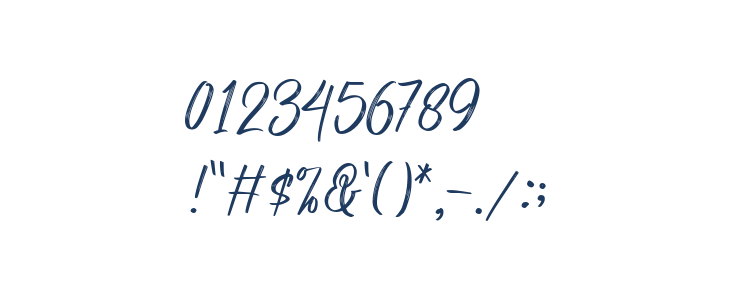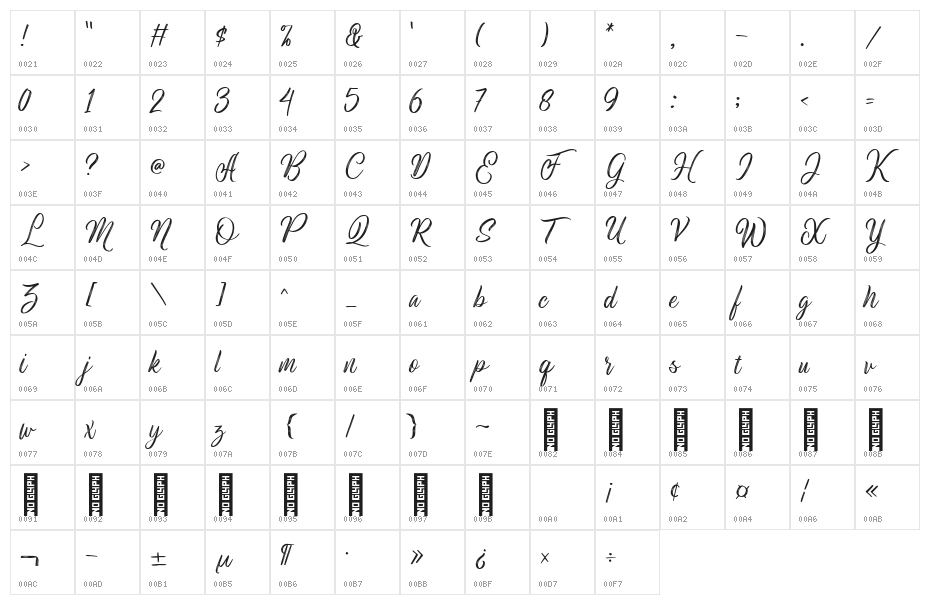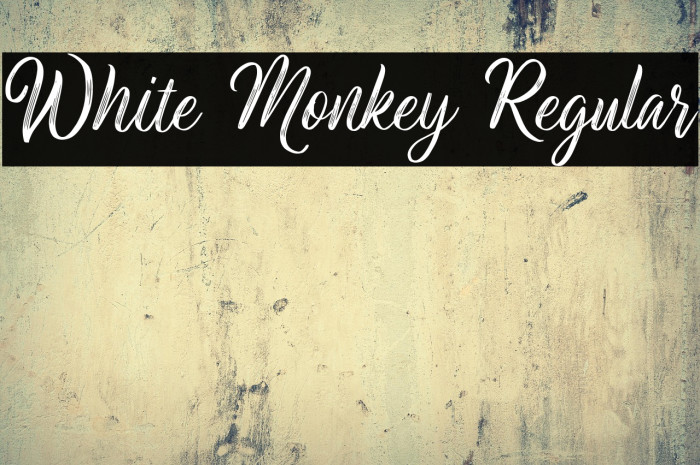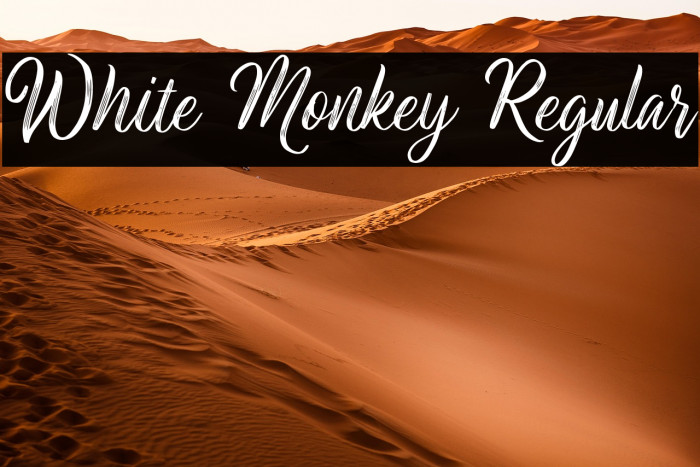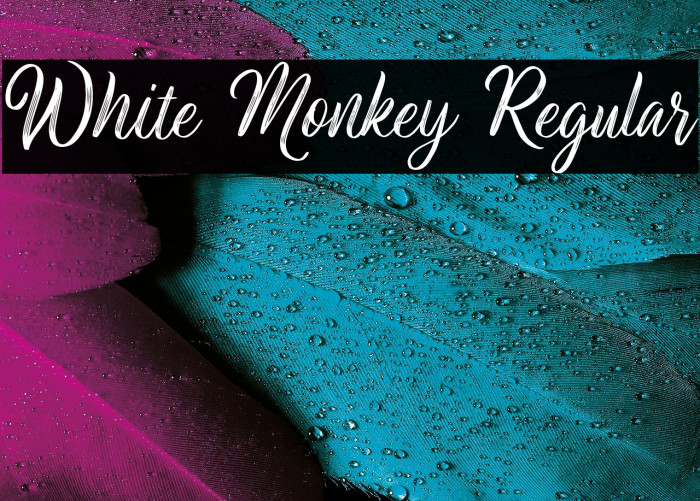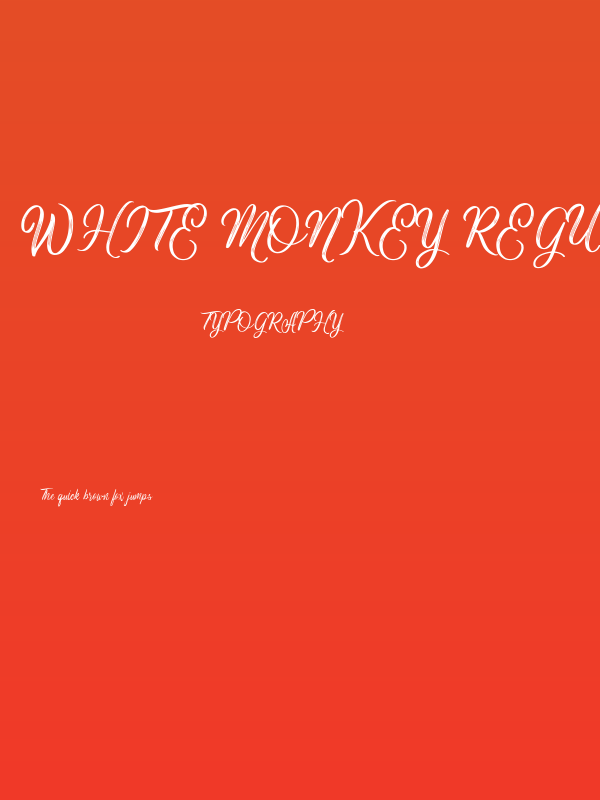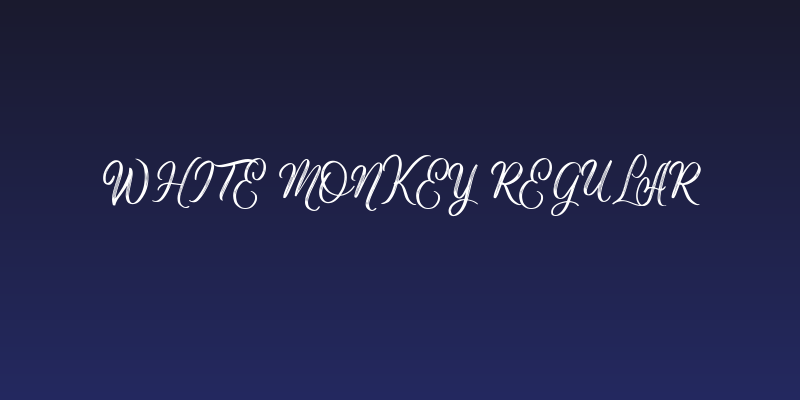
White Monkey Regular Font
White Monkey Regular Description
This font features an elegant and flowing script style, characterized by its smooth, cursive strokes and graceful curves. The uppercase letters are particularly ornate, with flourishes that add a touch of sophistication and flair. The lowercase letters maintain a consistent style, offering a harmonious blend with the uppercase. Numbers and special characters are designed with the same attention to detail, ensuring a cohesive overall appearance. The font's design is reminiscent of traditional calligraphy, making it suitable for projects that require a touch of elegance and refinement.
| Proposed Projects | Ideal for wedding invitations, elegant branding, greeting cards, and decorative signage. |